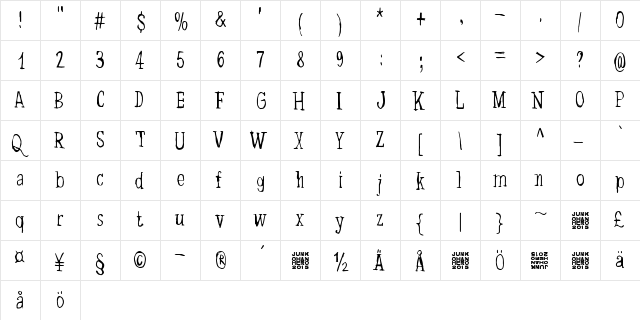
Dancing Barefoot Regular
Design Context for Dancing Barefoot Typeface
Dancing Barefoot is a composed and adaptable typeface that performs quietly and consistently across a wide range of design contexts.